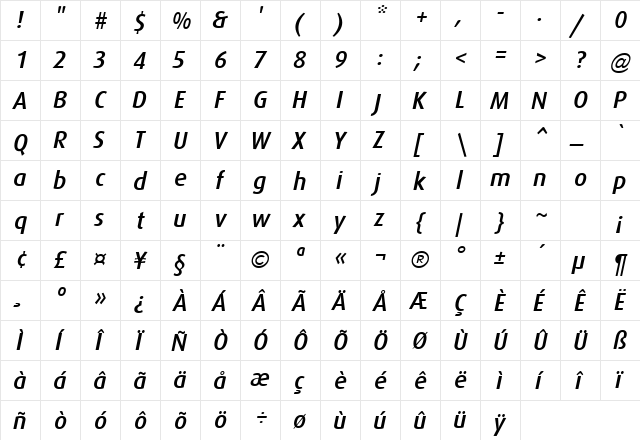
Dax-MediumItalic Regular
Design Context for Dax-MediumItalic Typeface
Dax-MediumItalic is a composed and adaptable typeface that performs quietly and consistently across a wide range of design contexts. The dynamic lean of this cut emphasises speed and emphasis in any layout.
Pro Tip: Try Dax-MediumItalic for annotation and caption copy alongside an upright companion — the contrast in angle creates a dynamic but ordered typographic system.